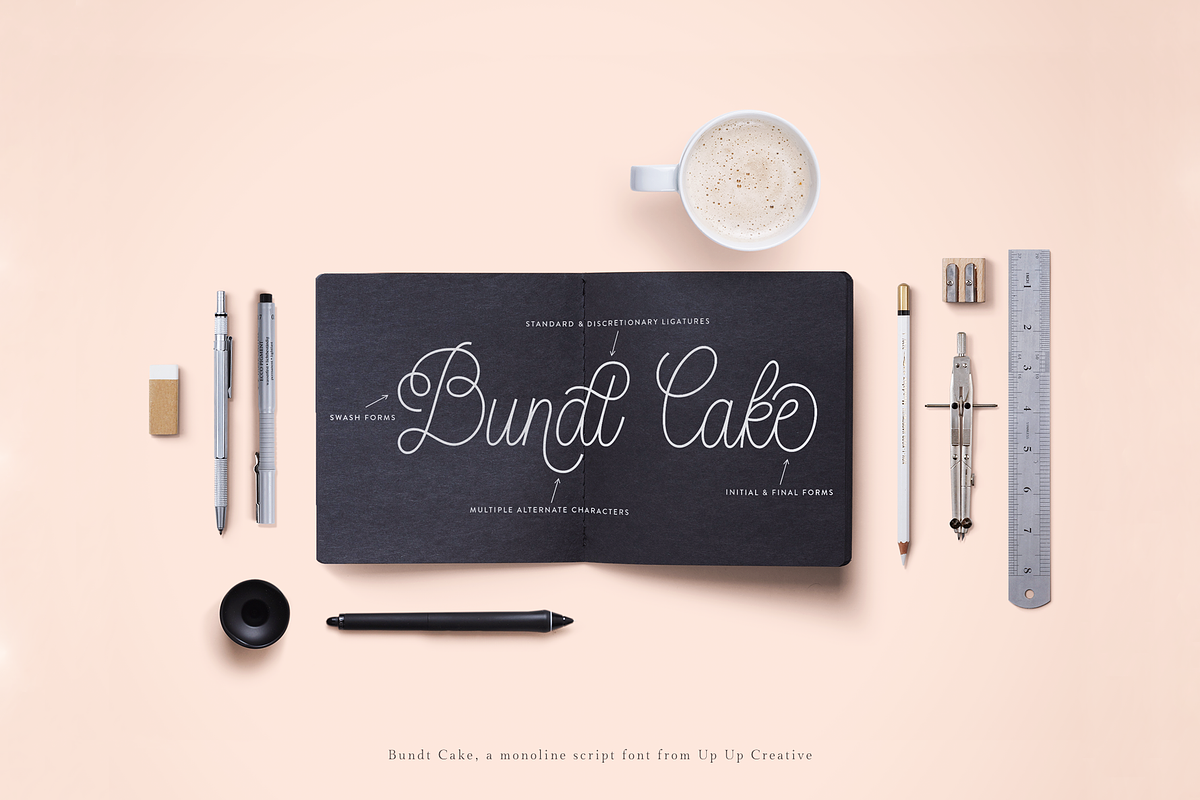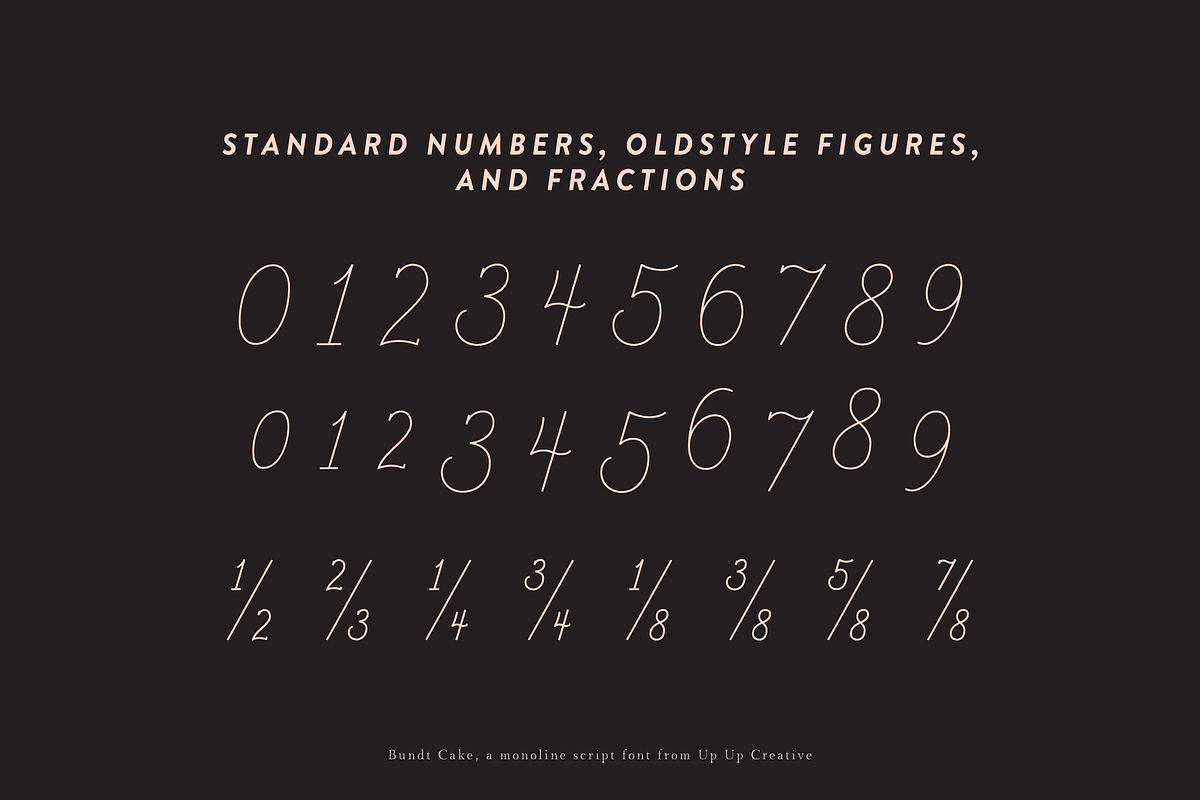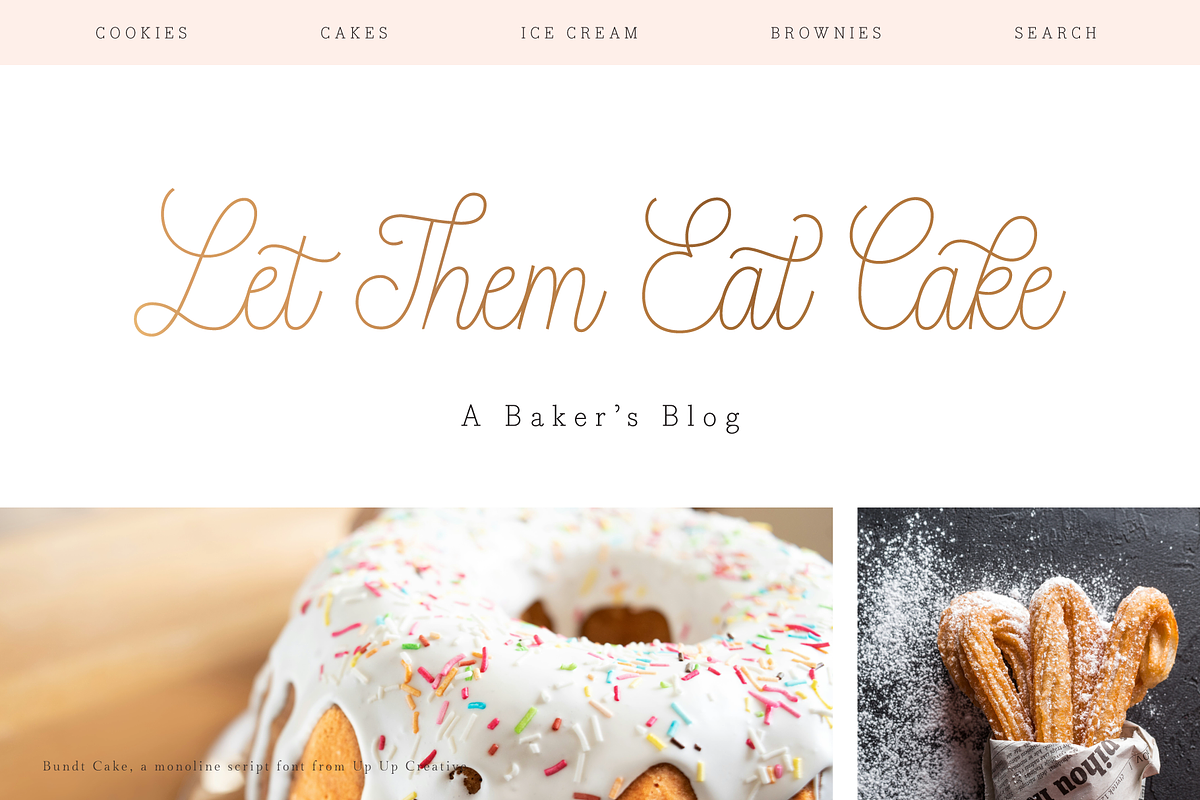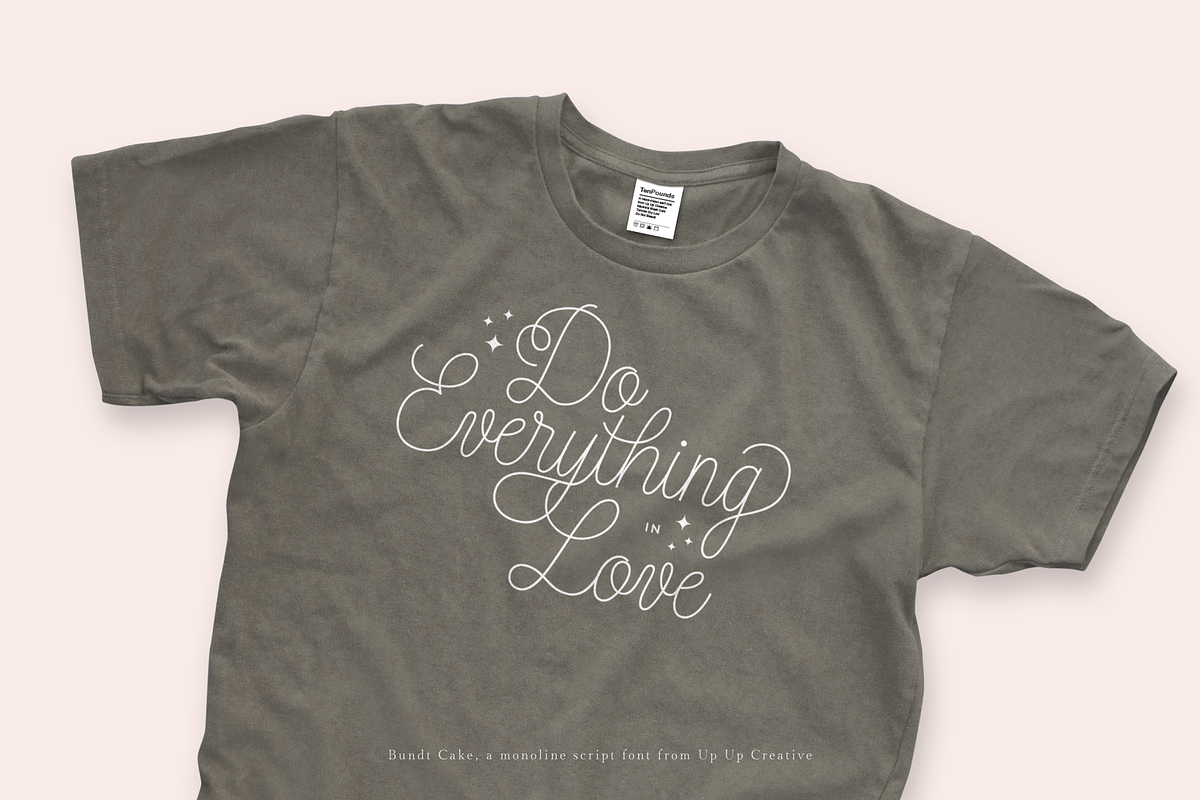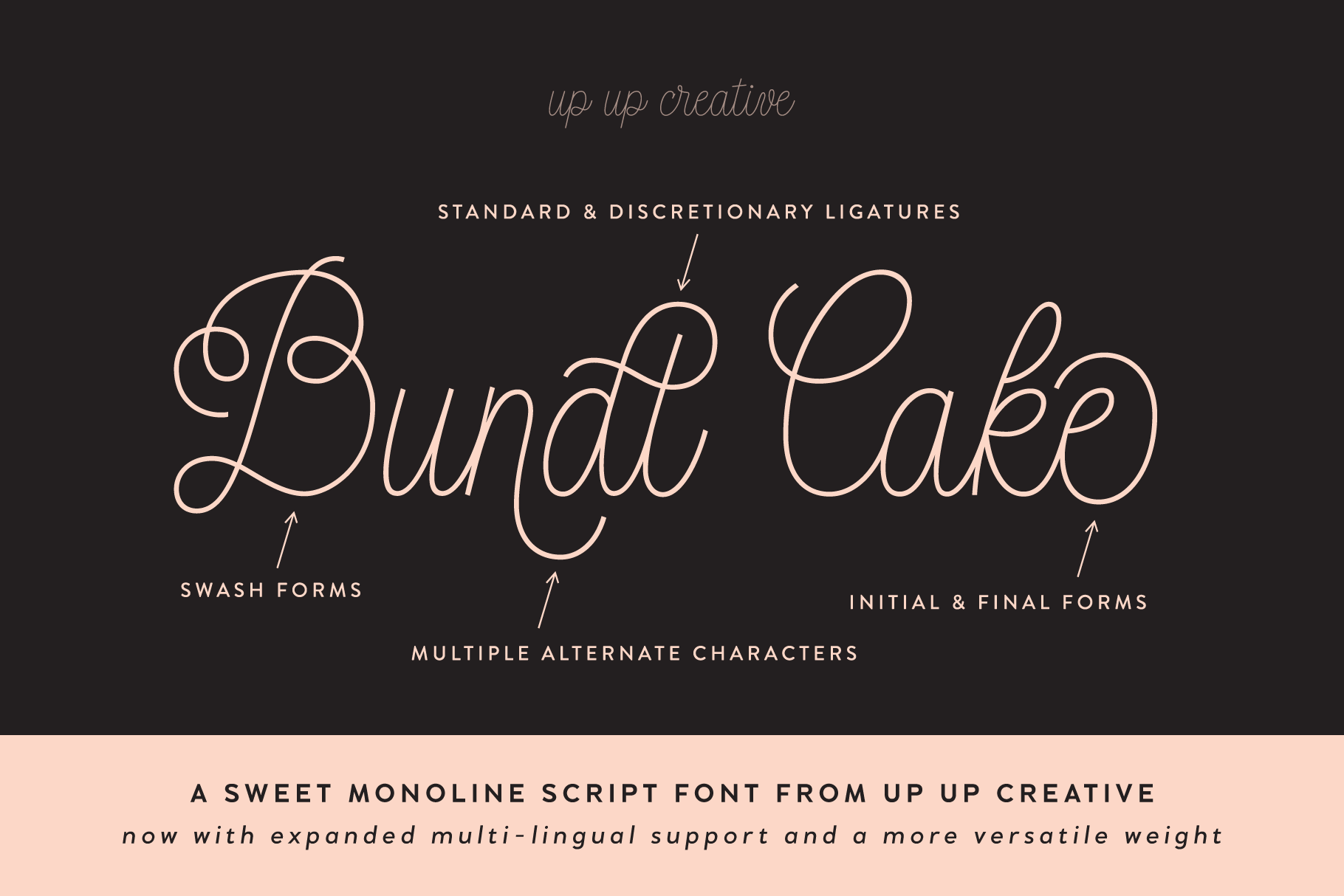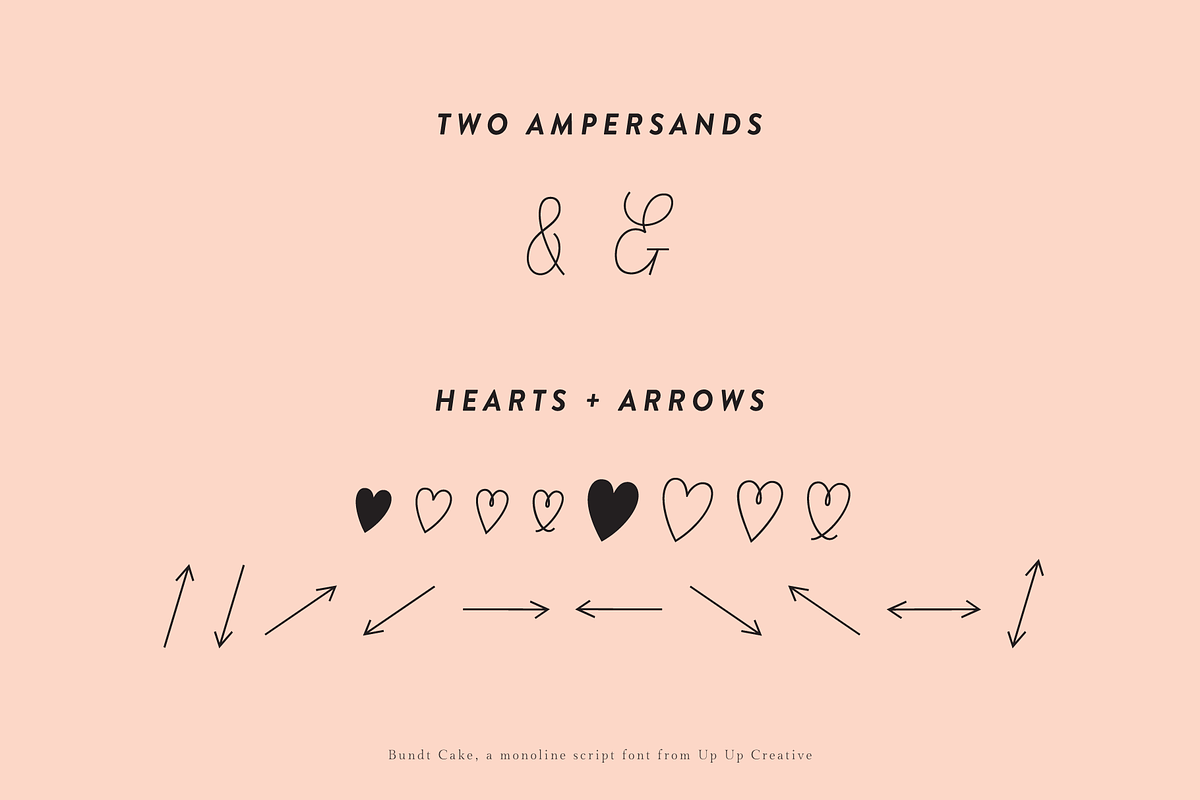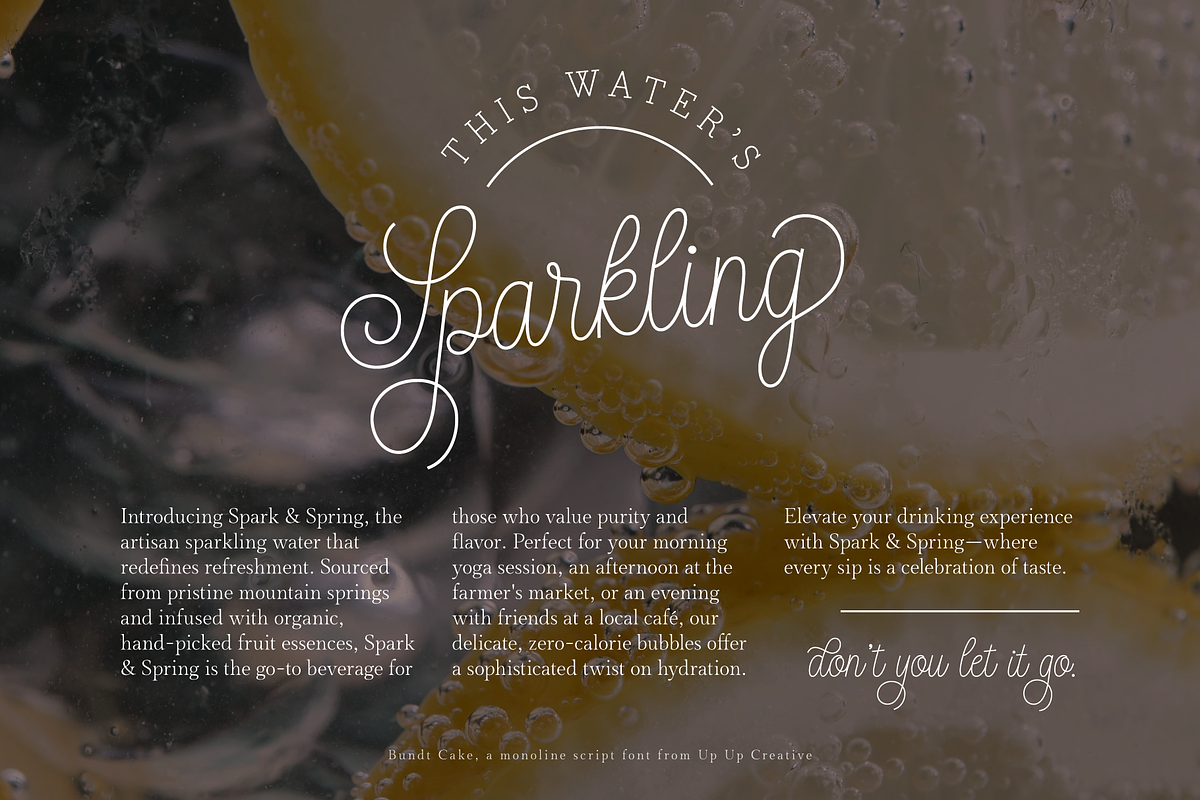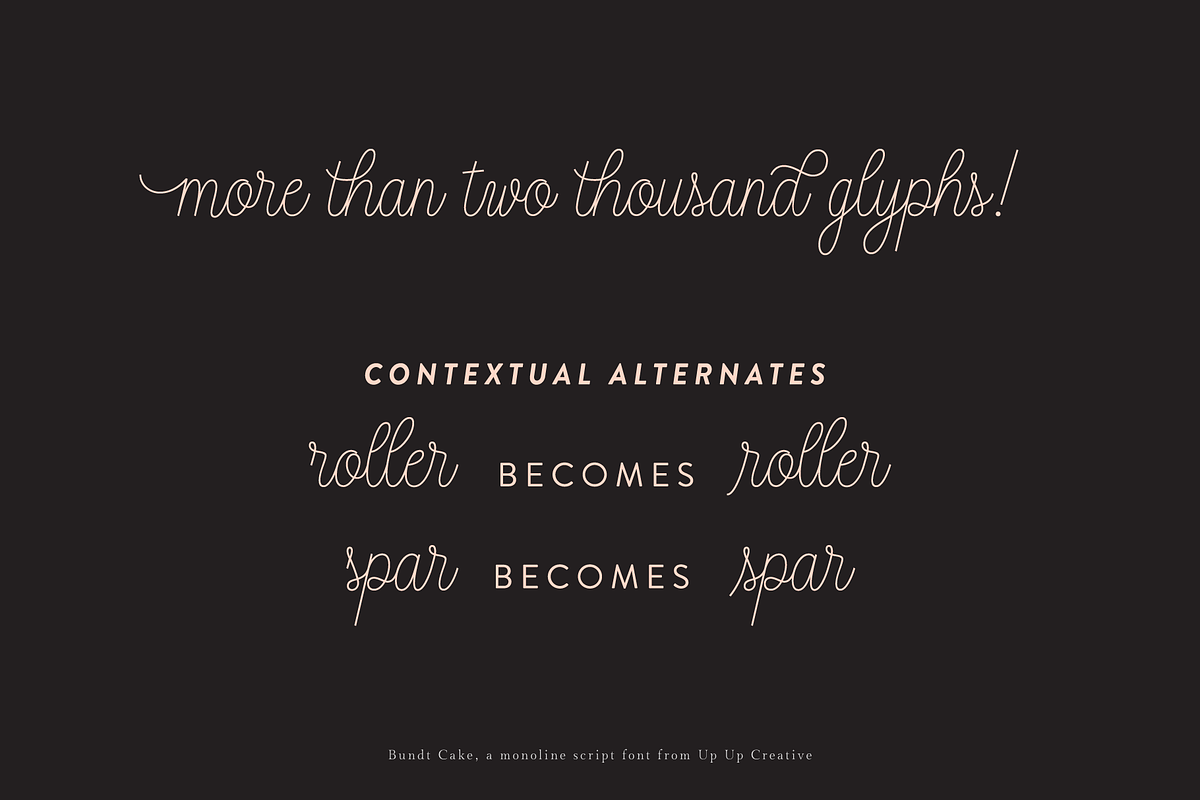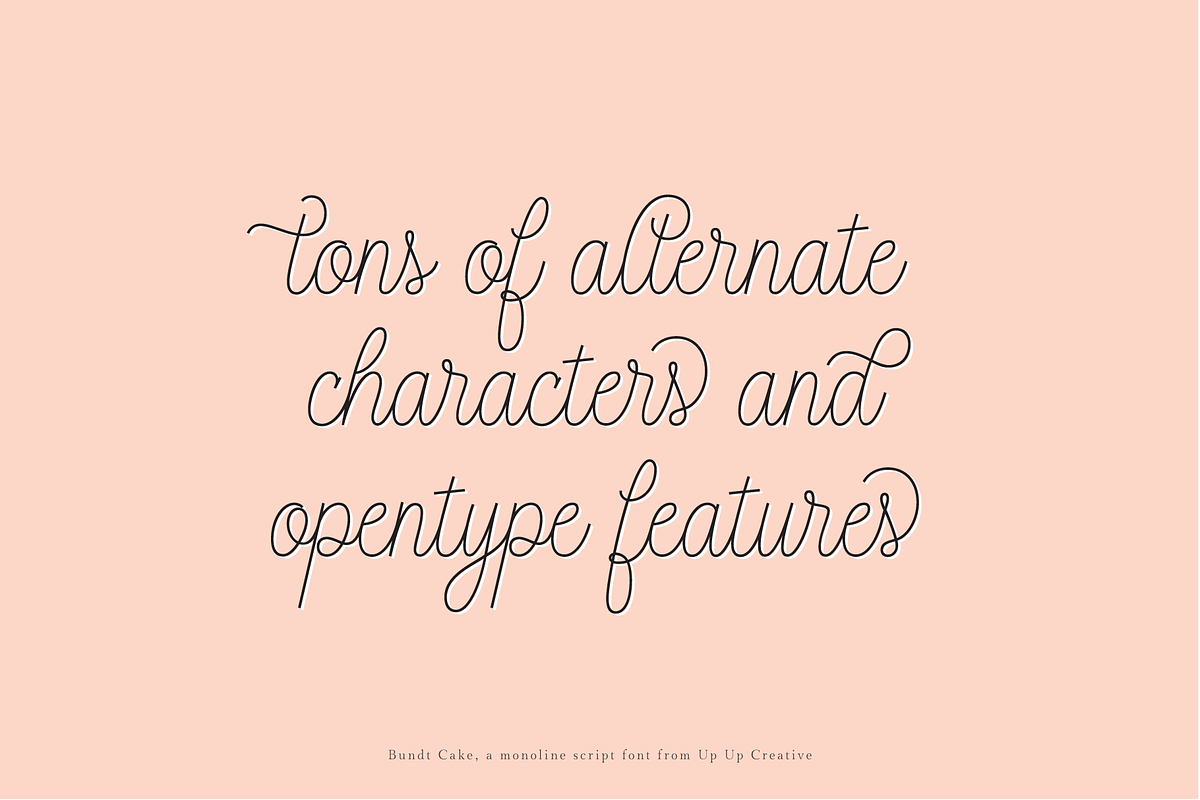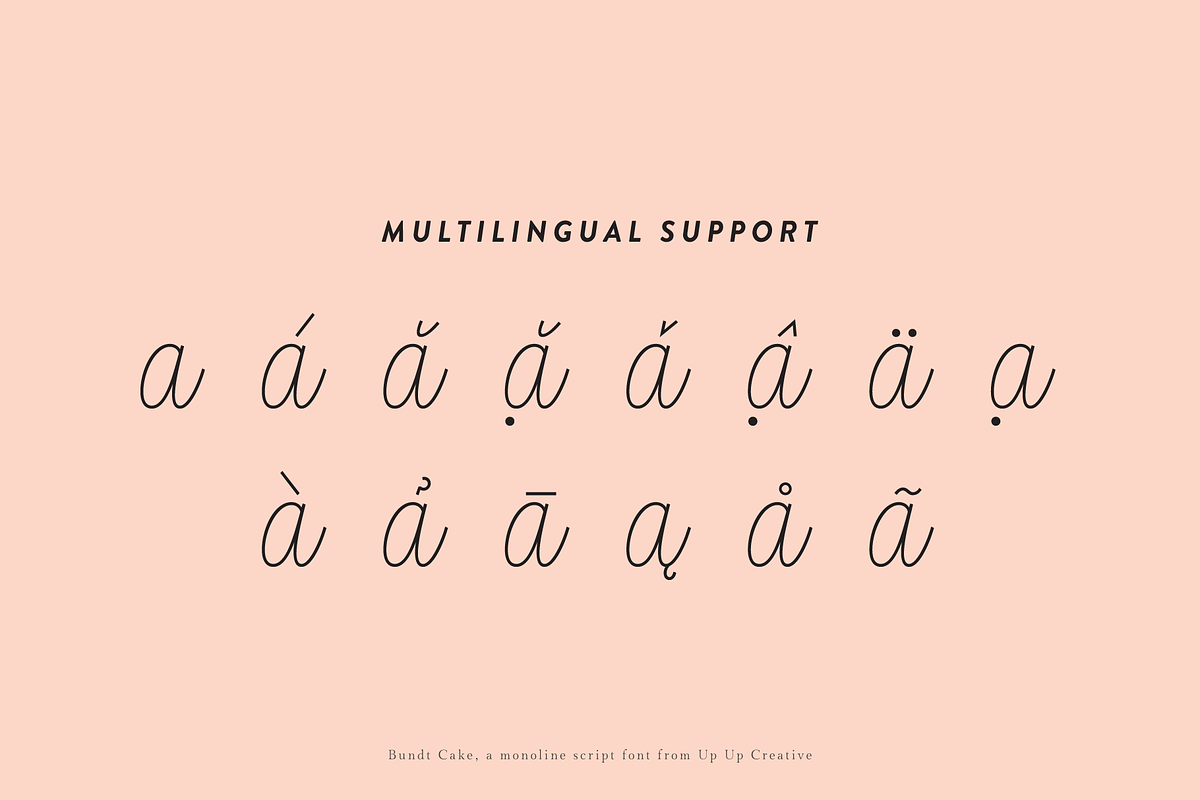
Bundt Cake Script Font
Bundt Cake is a sweet mono-line script font with tons of OpenType features, from useful contextual alternates to fun ligatures. Bundt Cake now comes with more than 2000 glyphs. Note: When Bundt Cake was first launched, it came with three “different” weights, but because it was my first font and I was still learning a lot back then, there really wasn’t much difference among them. I’ve since updated the font so that there is just one weight: New Regular. If you really find this to be sad, let me know and I can hook you up with the old version once you purchase the new version.
Bundt Cake is a script font ideal for branding, wedding suites, headlines, editorial use, large type, and calls to action.